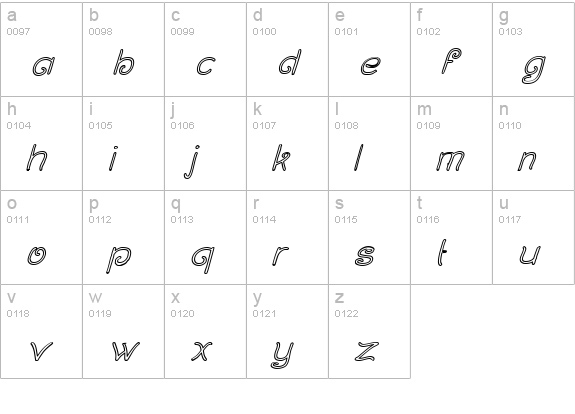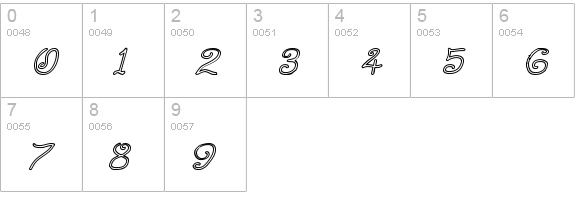
Curlmudgeon Hollow Italic Font Details
Curlmudgeon Hollow Italic is a distinctive, italic variant in the Curlmudgeon typeface family \xE2\x80\x94 well suited to design and typography projects.
Curlmudgeon Hollow Italic font exudes a unique blend of whimsical charm and elegant sophistication. With its intricate curly details and slanted italic design, this font adds a touch of artistic flair to any project. Perfect for invitations, greeting cards, and branding materials, Curlmudgeon Hollow Italic font is sure to make a statement. Best of all, this font is available for free download at FontsMarket.com. Get your hands on this delightful typeface and elevate your designs with its distinctive style. Let Curlmudgeon Hollow Italic font bring a touch of creativity to your projects today!